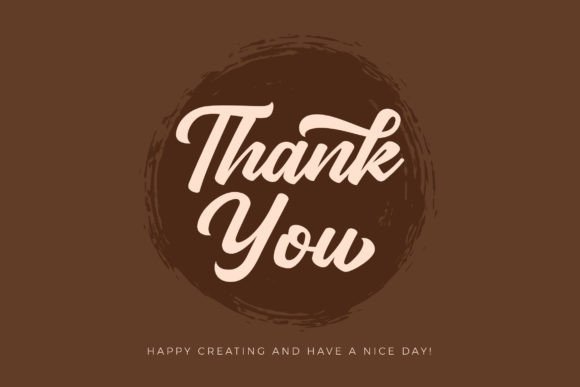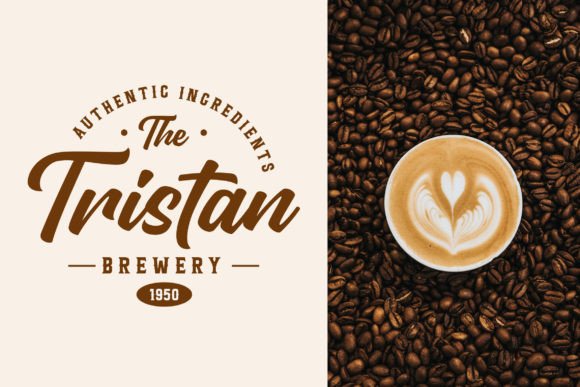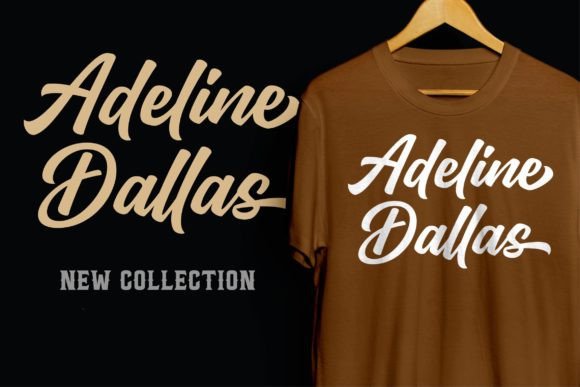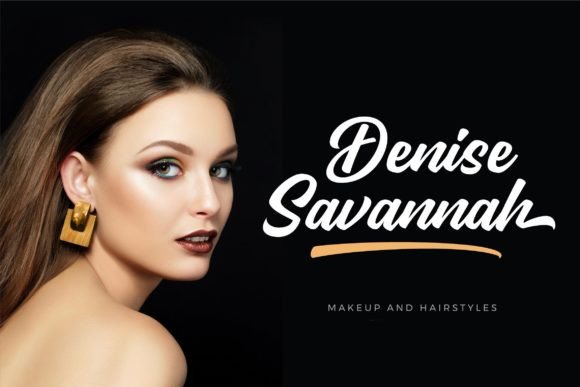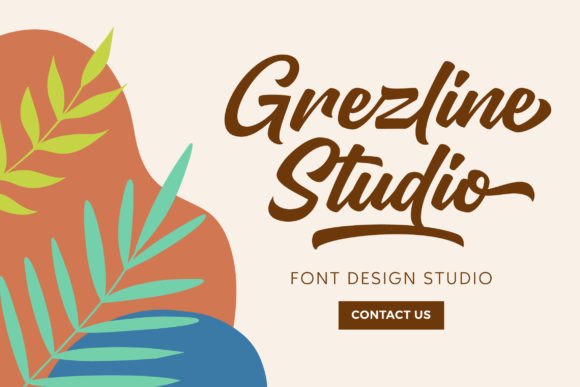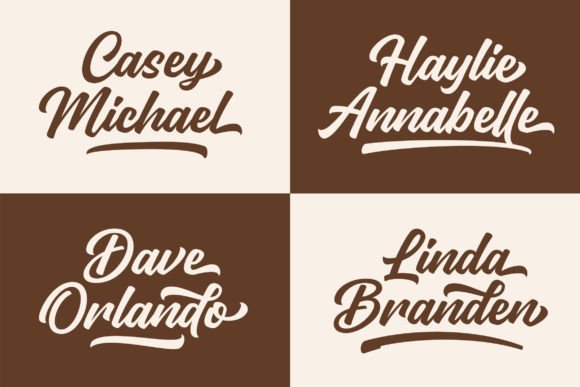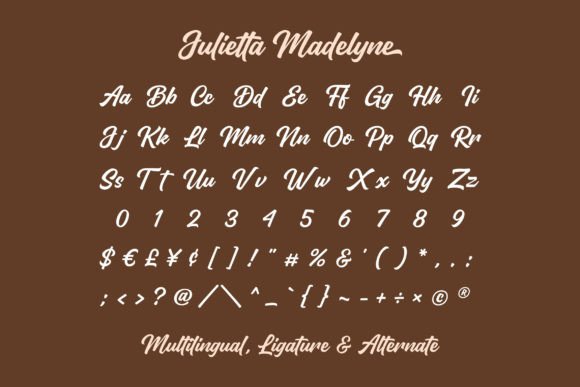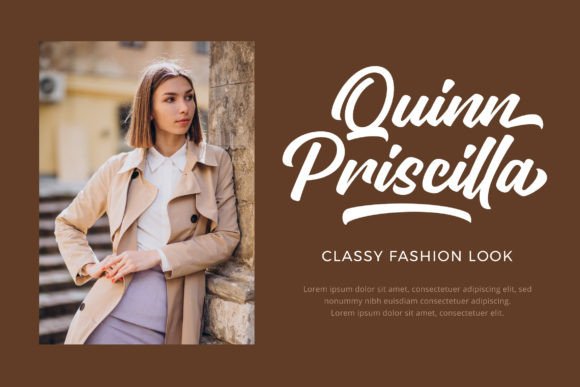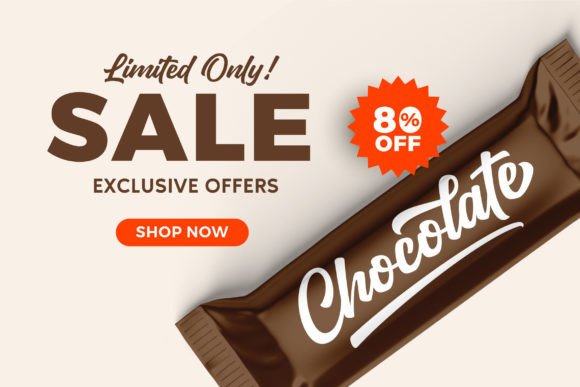
Julietta Madelyne Font
Delicate Brush Script for Artistic and Branding Projects
If you’re searching for a font that’s artistic yet refined, the delicate brush script style of Julietta Madelyne may be exactly what you need. This beautifully handcrafted typeface offers expressive strokes and soft curves, giving your designs a touch of personality and elegance.
Whether you’re designing for personal use or professional branding, this font brings creativity and charm to any layout.
Meet Julietta Madelyne: A Handcrafted Brush Script
Julietta Madelyne is a stylish and flowing script that simulates real brush handwriting. Its natural look adds authenticity and warmth to everything from logo designs to product packaging. The font is lightweight yet impactful, making it an excellent choice for both subtle and bold visuals.
Popular use cases for this delicate brush script include:
• Logos and signature branding
• Poster designs and social media graphics
• Product labels and packaging
• Quote artwork and digital prints
• Covers for books, journals, or planners
• Merchandise such as t-shirts, mugs, and tote bags
Its balance of simplicity and flair makes it suitable for countless creative applications.
Why Choose Julietta Madelyne?
• Hand-drawn, brush script style with an elegant touch
• Lightweight and readable for any medium
This delicate brush script offers a unique opportunity to add natural, artistic beauty to your design work without sacrificing readability or functionality.
Great for Crafting, Branding & Downloadable Products
Julietta Madelyne is especially popular among crafters, small business owners, and Etsy sellers. Its brush-lettered appearance lends itself well to DIY-style projects and handmade-inspired brands.
Ideal for use in:
• Branding kits and logo templates
• Downloadable planner pages and motivational prints
• Wedding stationery and greeting cards
• Social media post templates and quote graphics
Its versatility ensures it fits seamlessly into both minimalist and decorative design styles.
Julietta Madelyne captures the elegance of handwriting with the creative flair of brush lettering. If you’re looking to add a human touch to your designs while maintaining professional polish, this delicate brush script delivers exactly that.